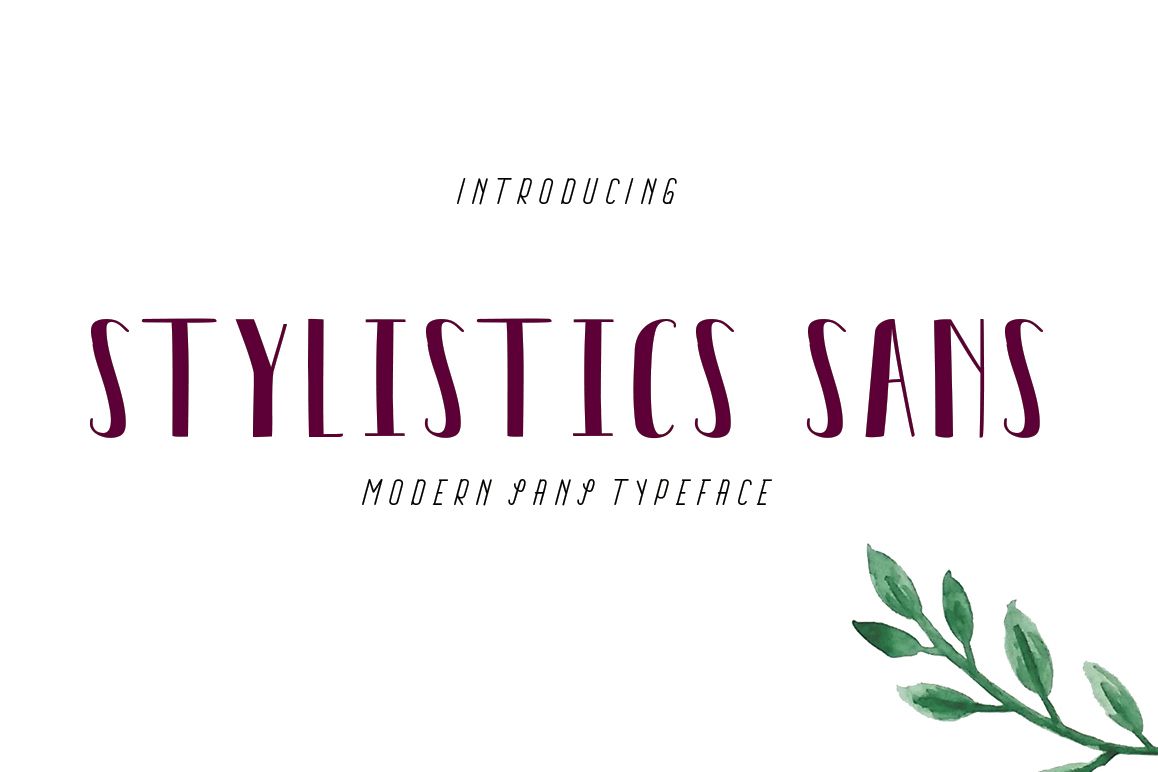
Stylistics Sans
Stylistics Sans - is perfect for cards, invitations, and other fun projects your logo you are doing. This font also works perfectly when pairing it with a script font.